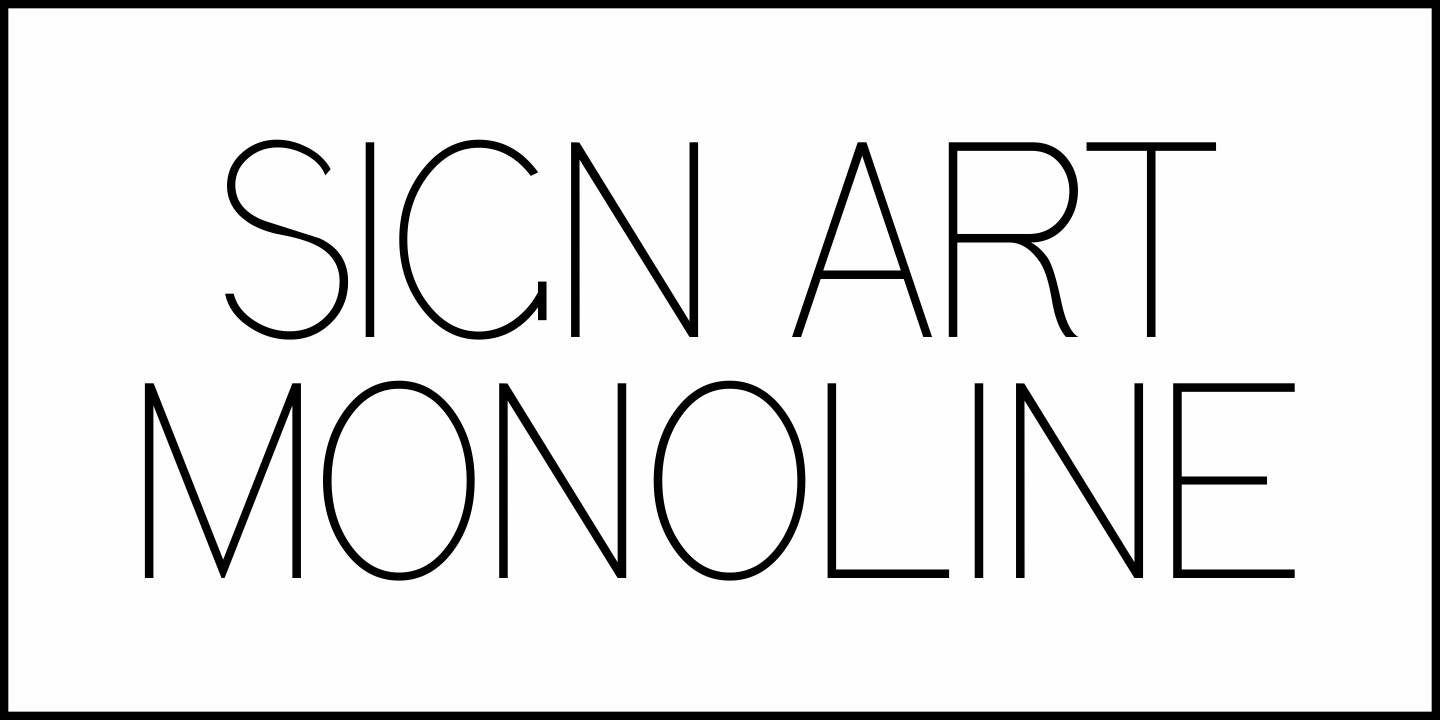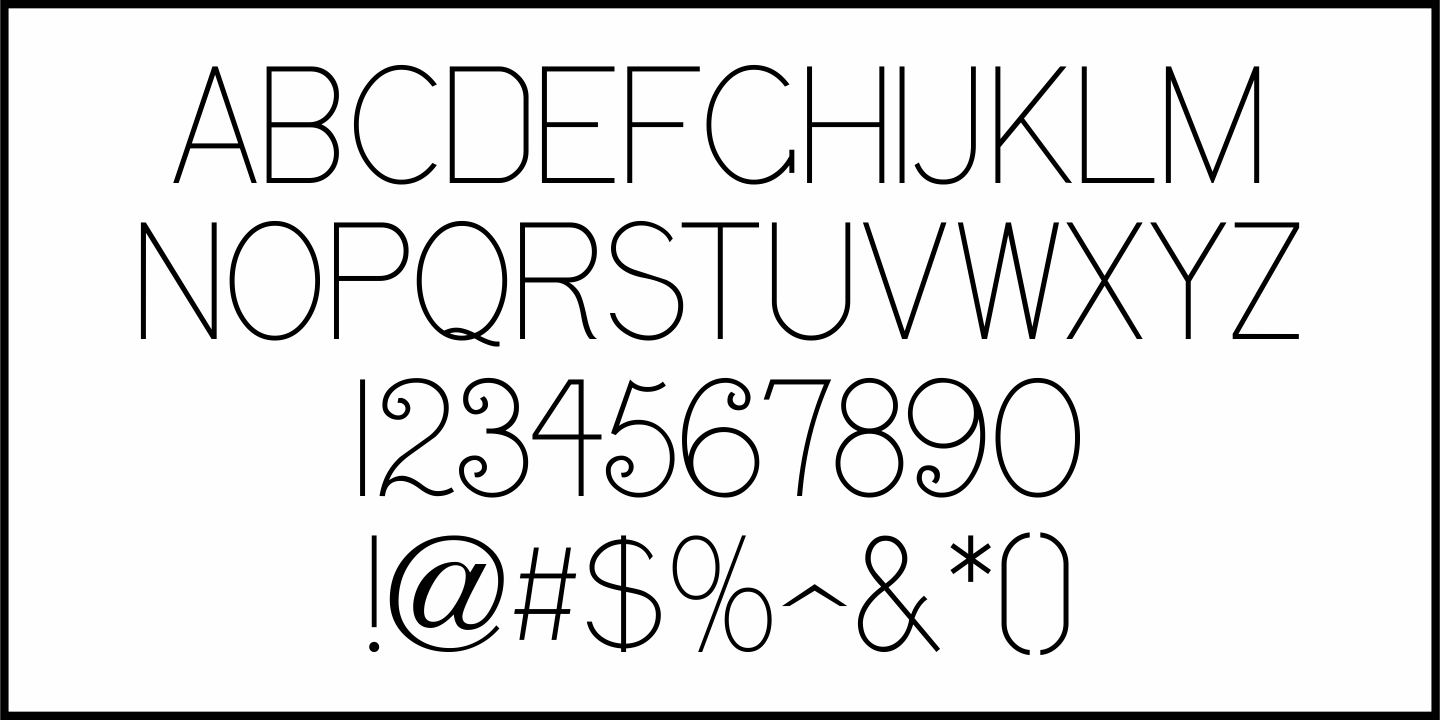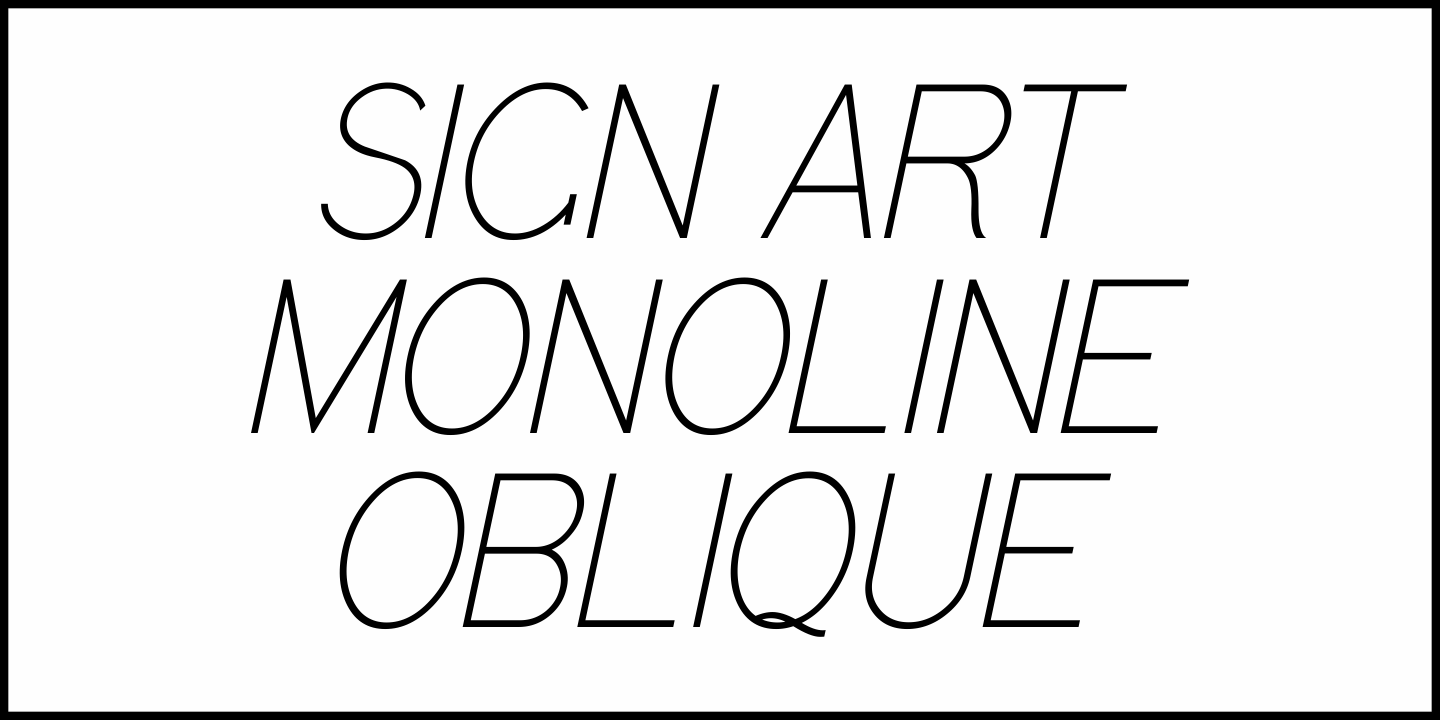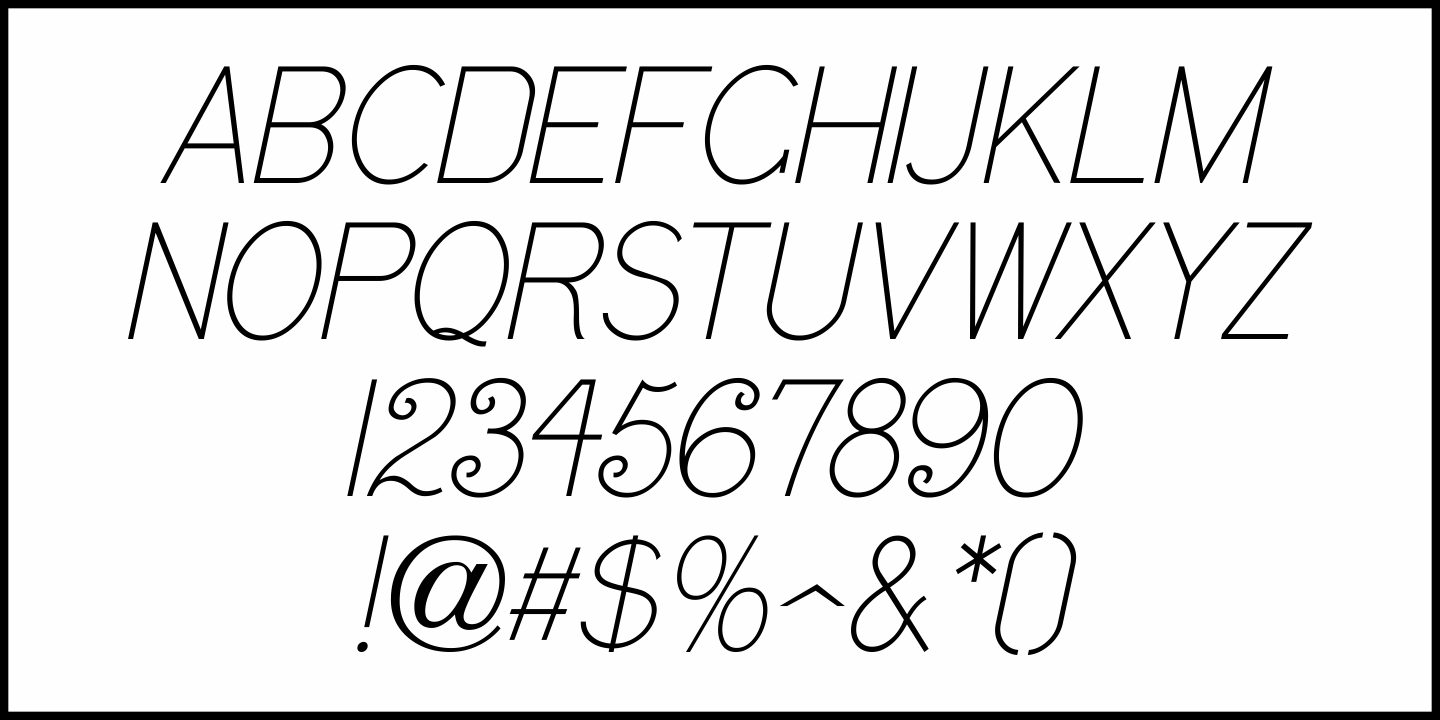
Sign Art Monoline
In the 1907 book "How To Write Signs, Tickets & Posters" by Paul N. Hasluck is a thin, hand lettered sans style of lettering that at first seems pleasant and somewhat generic.
However, it is the set of numerals in this monoline type design which have curls on the 2,3,5,6 and 9.  This gives this alphabet a bit of an Art Nouveau flair and makes it more unique from other sans faces from that era.
This is now available as Sign Art Monoline JNL in both regular and oblique versions.
Sign Art Monoline Regular by Jeff Levine Fonts